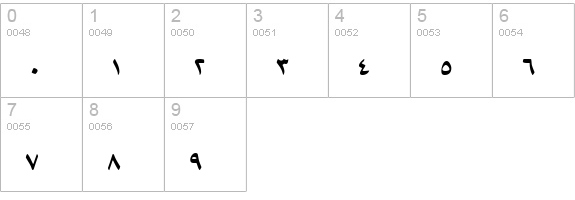
B Arabic Style Font Details
B Arabic Style font is a stunning and elegant typeface that brings a touch of sophistication to any design project. With its intricate details and unique Arabic-inspired elements, this font is sure to make a statement. Whether you're looking to add a touch of flair to your branding, invitations, or website, B Arabic Style font is the perfect choice. The best part? B Arabic Style font is completely free to download at FontsMarket.com. With just a few clicks, you can elevate your designs with this beautiful and versatile font. Don't miss out on the opportunity to add a touch of luxury to your projects with B Arabic Style font. Download it today and let your creativity shine.